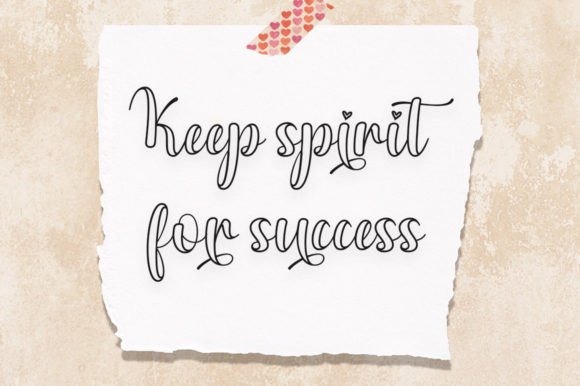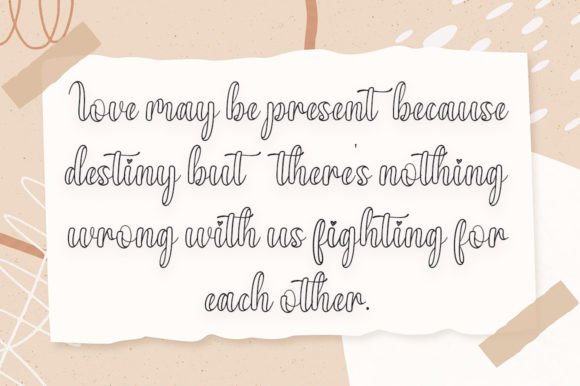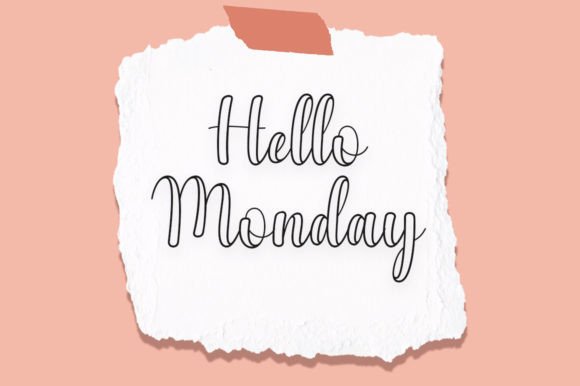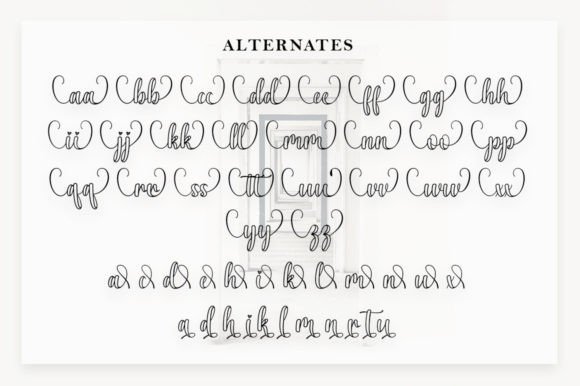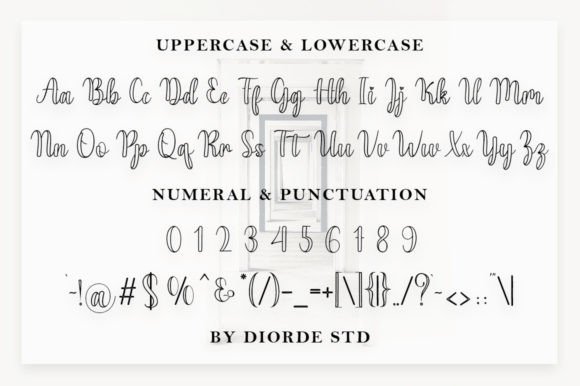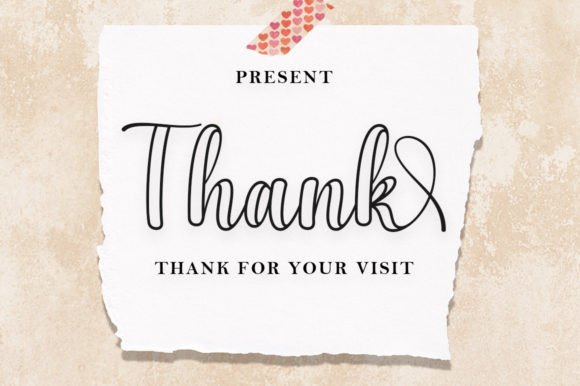
Unleash Your Creativity with Bella Queen Outline Font
Have you ever stared at a blank canvas, waiting for the perfect font to bring your project to life? For designers, the search for the perfect font can be a daunting task. But what if I told you that there’s a font that can turn any idea into a work of art? Enter Bella Queen Outline Font, a charming and versatile handwritten font that’s sure to captivate your audience.
Bella Queen Outline Font is more than just a pretty face – it’s a valuable tool for designers who want to add a touch of warmth and personality to their projects. With its PUA coding, you’ll have access to all the glyphs and swashes you need to create stunning designs. Whether you’re working on a wedding invitation, a birthday card, or a social media graphic, Bella Queen Outline Font is the perfect companion to help you bring your ideas to life.
Bella Queen Outline Font Key Features
- Font Style: Outline, giving it a unique and elegant appearance.
- Unique Characteristics: Features a delicate, hand-drawn design with intricate details, making it ideal for titles, headings, and other display text.
Bella Queen Outline Font Review
I recently had the chance to work with the Bella Queen Outline Font, and I must say, it has some great qualities. ✨ The font is perfect for creating elegant and sophisticated designs, especially when used in titles and headings. The delicate outline design adds a touch of sophistication to any project.
Here are some of the things that I liked about this font:
- ✨ Elegant and sophisticated design
- ✨ Perfect for titles and headings
- ✨ Great for creating a sense of luxury and refinement
However, there are some limitations to consider. ⚠️ The font can be a bit difficult to read at smaller font sizes, and it may not be suitable for body text. Additionally, the outline design can sometimes make the text appear cluttered or busy.
Overall, I would give the Bella Queen Outline Font 3.5 out of 5 stars. While it excels at creating elegant and sophisticated designs, its limitations make it less versatile than some other fonts. Still, it’s a great choice for projects that require a touch of luxury and refinement.
Tips for Getting the Most Out of Bella Queen Outline Font
1. Use Bella Queen Outline Font for titles and headings to add a touch of elegance.
2. Pair Bella Queen Outline Font with a bold font for a striking contrast.
3. Experiment with different font sizes and colors to create a unique look.
2. Fashion and beauty branding.
3. Luxury product packaging and labels.